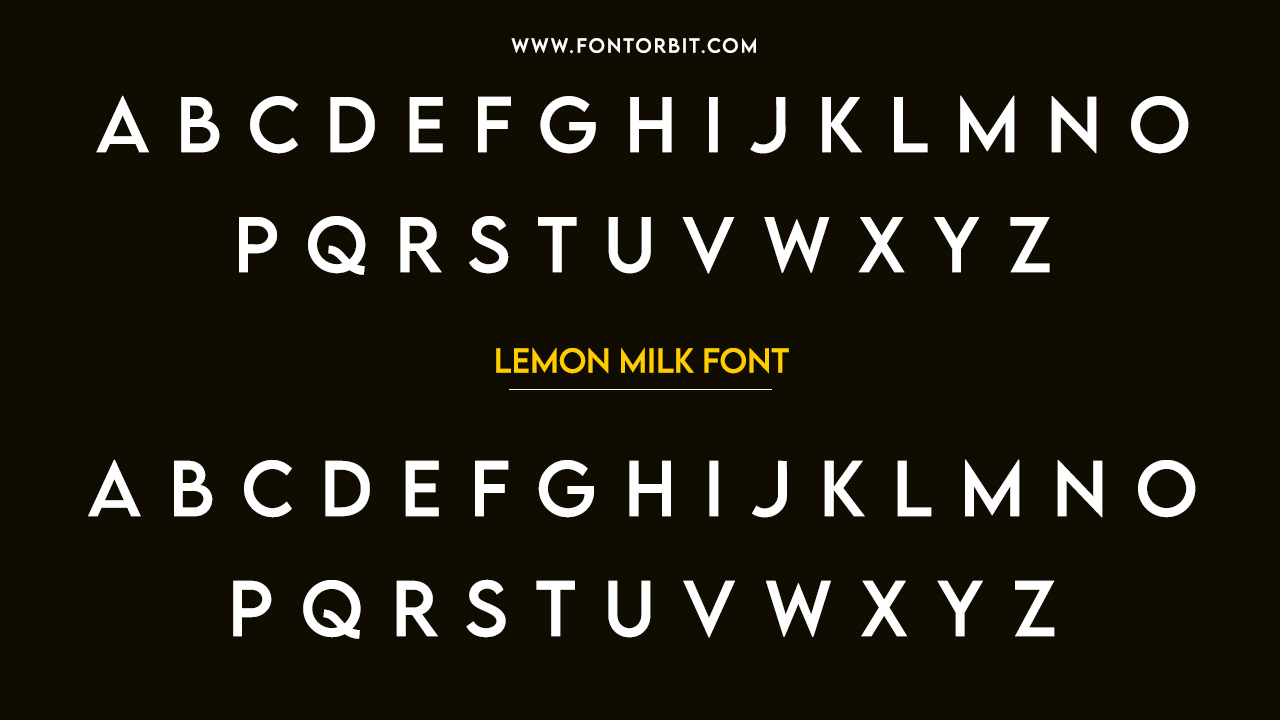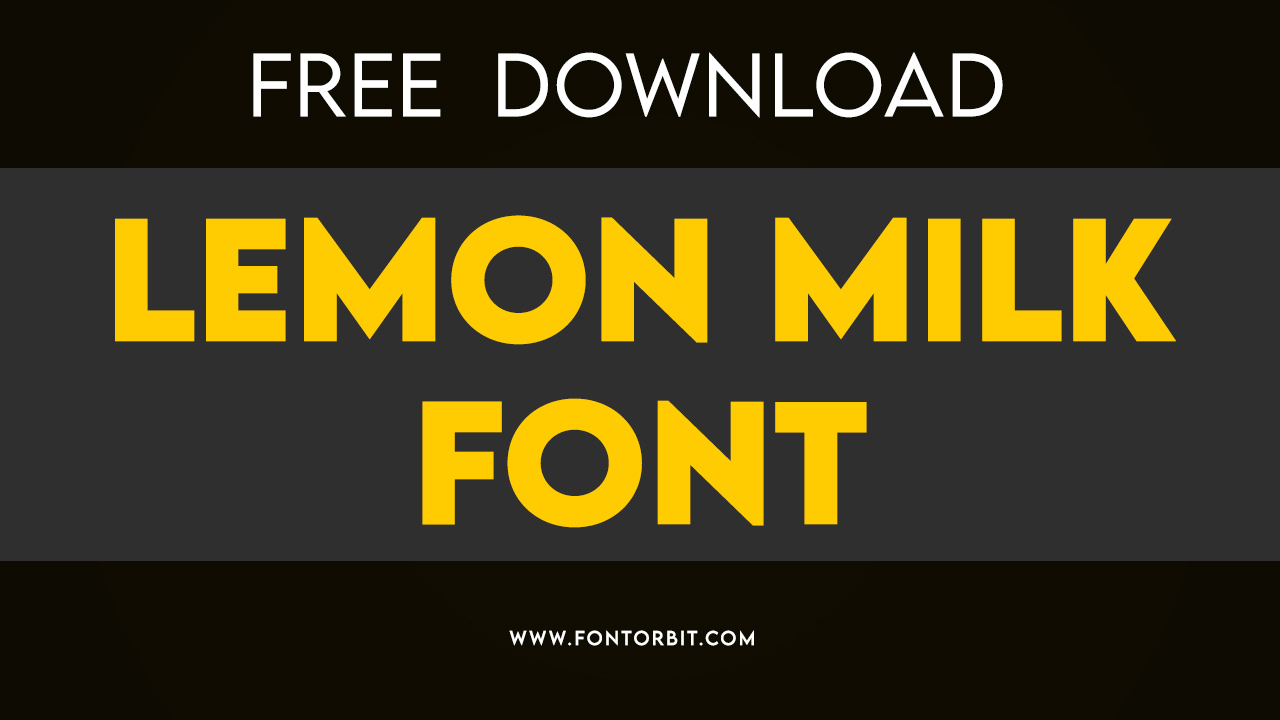
Lemon Milk Font, designed by Marsnev, is a modern sans-serif typeface introduced on January 14, 2020. It offers a contemporary, clean aesthetic and includes 8 fonts plus 2 variable fonts that span from thin to heavy weights.
With support for lowercase letters and extended Latin, Cyrillic, and Greek alphabets, Lemon Milk is versatile for a range of design applications, providing both style and functionality
Where To Use
Lemon Milk Font is a versatile choice for designers due to its bold, geometric design. Here are some of its common applications:
- Logotypes
- Banners
- Architectural Design
Lemon Milk Font stands out in modern sans serif typefaces due to its sharp, bold edges and architectural design. It offers a unique blend of geometric shapes and clean lines. Whether you’re creating a logotype, designing promotional materials, or working on architectural projects, Lemon Milk’s distinctive style will help your work stand out.
The Lemon Milk Font family includes eight styles: Light, Light Italic, Regular, Regular Italic, Medium, Medium Italic, Bold, and Bold Italic.
3.What Are Some Similar Fonts To Lemon Milk?
Similar geometric sans serif fonts include Futura, Montserrat, Gotham, and Raleway.
6.What Makes Lemon Milk Different From Other Geometric Sans Serif Fonts?
Lemon Milk stands out due to its bold, sharp-edged design mixed with thin strokes, which gives it a mid-century architectural aesthetic that many geometric sans serif fonts lack.